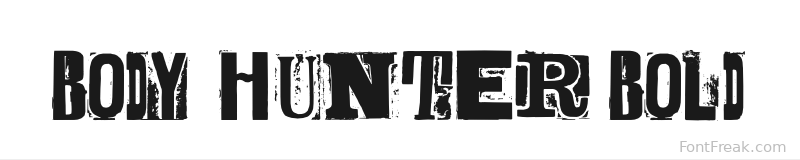
BODY HUNTER Bold
BODY HUNTER Bold by Billy Argel Fonts is a striking display font that brings an edgy, modern flair to any project. With its bold, chunky letterforms and a slightly distressed texture, this font falls into the decorative category, making it perfect for grabbing attention. The thick strokes and minimal contrast create a commanding presence, while the uneven edges add a touch of rugged charm. The spacing between letters is tight yet balanced, allowing for impactful headlines and titles.
This versatile font is ideal for a variety of creative uses. It works exceptionally well in poster designs for music events or film screenings, where a bold statement is essential. Its distinctive character also makes it a great choice for branding projects, especially for businesses in the outdoor, adventure, or lifestyle sectors. The BODY HUNTER Bold font is also suitable for product packaging, where it can evoke a sense of authenticity and ruggedness. Additionally, it can enhance promotional materials, helping brands to stand out in a crowded marketplace.
What truly sets BODY HUNTER Bold apart is its ability to convey strength and personality while remaining highly legible. Whether you're crafting eye-catching promotional banners or designing merchandise that needs to resonate with a youthful audience, this font is a fantastic option. Explore the versatility of this captivating typeface with a BODY HUNTER Bold font free download today and make your designs unforgettable.